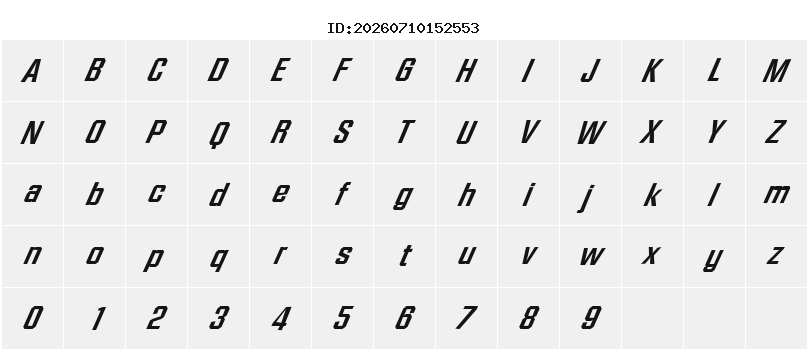
FacetExtrabold-XXitalic.ttf is a modern, elegant sans-serif font designed for ultimate readability and visual harmony. Perfect for branding, headlines, web design, and print materials.